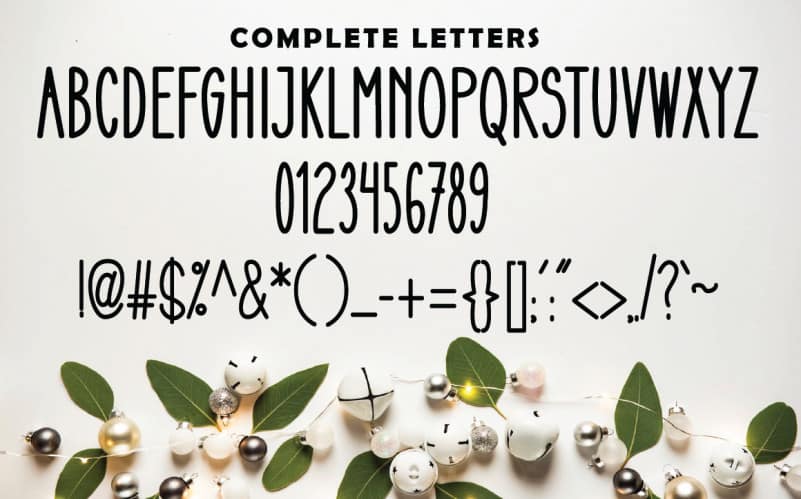
Christmas Light Display Font
Christmas Light Display Font is a tall, cute, and simple sans serif font. Its natural and unique style makes it incredibly fitting to a large pool of designs.